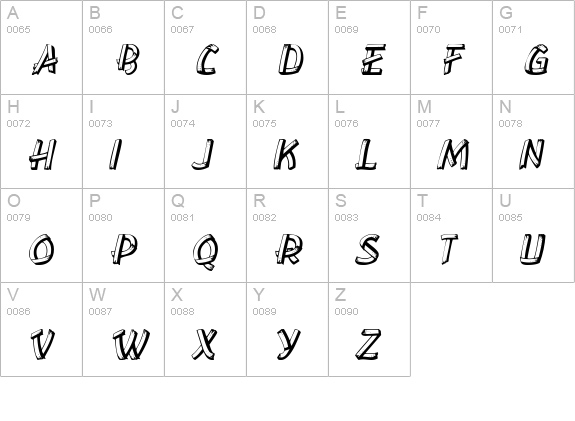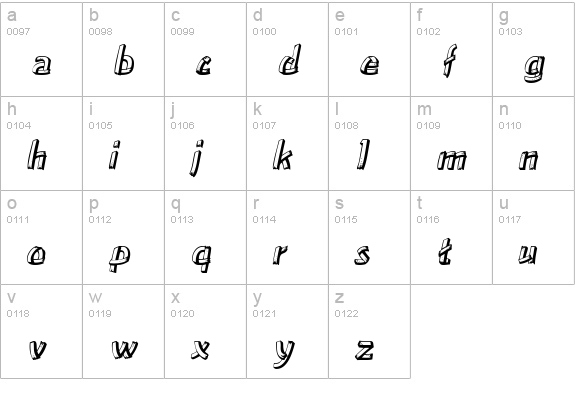
ClampettsDisplay Italic Font Details
ClampettsDisplay Italic is a distinctive, italic variant in the ClampettsDisplay typeface family \xE2\x80\x94 well suited to design and typography projects.
ClampettsDisplay Italic font is a stylish and elegant typeface that exudes sophistication and charm. With its sleek and modern design, this font is perfect for adding a touch of class to any project. The italicized characters add a touch of flair and creativity, making ClampettsDisplay Italic font a versatile choice for a wide range of design applications. Best of all, ClampettsDisplay Italic font is available for free download at FontsMarket.com. This means you can easily access this high-quality font without any cost, making it a fantastic option for designers and creatives looking to elevate their work without breaking the bank. Don't miss out on the opportunity to enhance your projects with ClampettsDisplay Italic font - download it today for free and bring your designs to the next level!